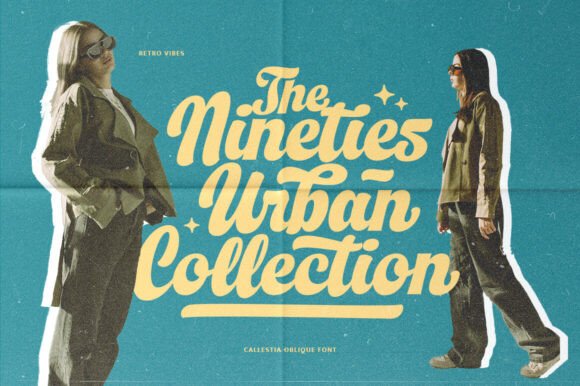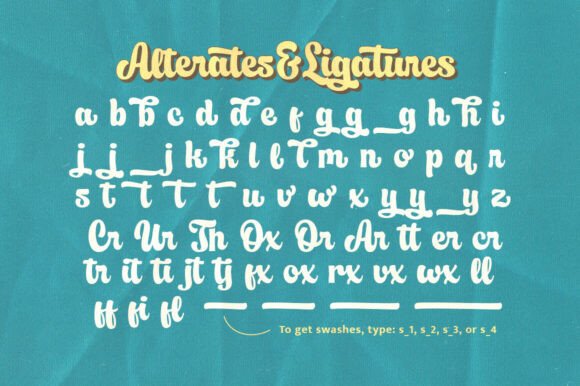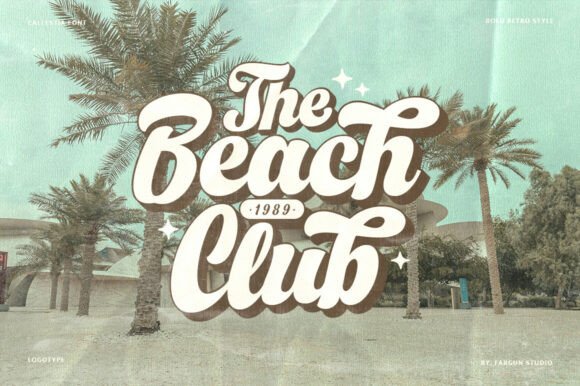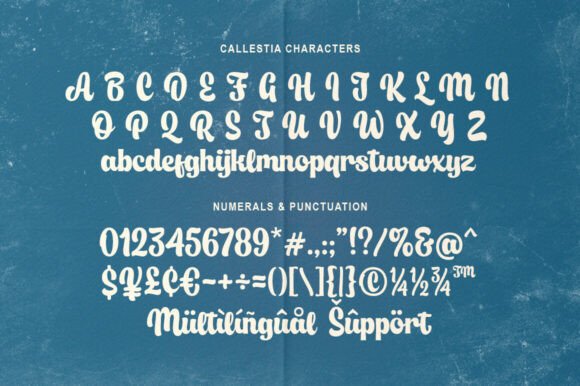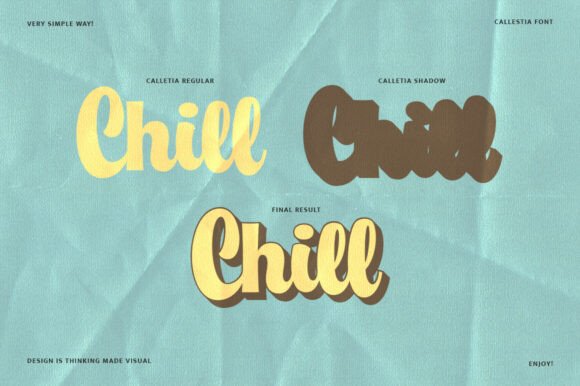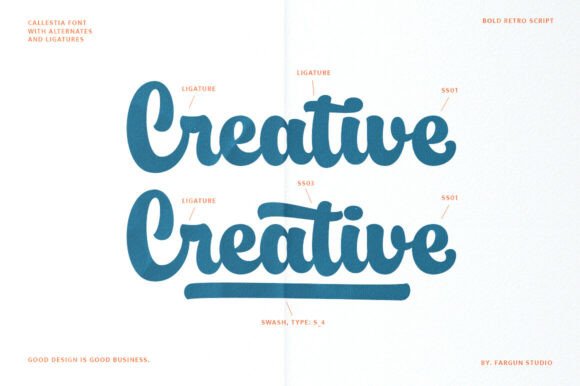
The Retro Revival: Unlocking the Power of the Callestia Font
Who hasn’t spent hours pouring over old cassette tapes, VHS recordings, and vinyl records, reminiscing about the carefree days of the 90s? As a designer, I’ve always been fascinated by the unique aesthetic of that era – the bold typography, the vibrant colors, and the infectious energy. And that’s exactly what the Callestia Font embodies – a bold retro script that instantly transports you back to the vibrant days of yesteryear.
The Callestia Font is more than just a typeface; it’s a statement piece that’s designed to make your projects stand out effortlessly. With its smooth curves, strong personality, and oblique and extrude versions, this font is a treasure trove of creative possibilities. Whether you’re a seasoned designer or just starting out, the Callestia Font is a valuable addition to your toolkit, offering the flexibility to create eye-catching retro effects with ease.
Callestia Font Key Features
- Font Family: Callestra, Callestra Italic, Callestra Bold, Callestra Bold Italic
- Unique Characteristics: Elegant script font with a touch of modernity, suitable for invitations, wedding stationery, and other formal events
Callestia Font Review
When I first laid eyes on the Callestia Font, I was immediately drawn to its elegant and sophisticated aesthetic. ✨ The flowing curves and subtle flourishes evoke a sense of luxury and refinement, making it perfect for high-end branding, fashion, and design projects.
Here are some of the things that work well with Callestia Font:
- ✨ Elegant and sophisticated aesthetic
- ✨ Perfect for high-end branding, fashion, and design projects
- ✨ Beautifully designed for display and text use
- ✨ Supports various languages
However, I did encounter some limitations with the Callestia Font:
- ⚠️ Limited font sizes and weights available
- ⚠️ Not suitable for large blocks of text, as it can be quite busy
- ⚠️ Some users may find it too ornate or over-the-top
Overall, I think Callestia Font is a beautiful and versatile font that can add a touch of sophistication to any design project. While it may have some limitations, it’s definitely worth considering for high-end branding and design projects.
Tips for Getting the Most Out of Callestia
Here are some tips for getting the most out of the Callestia font:
- Use Callestia for headings and titles to add a touch of elegance to your designs.
- Combine Callestia with other fonts to create a unique and visually appealing typography.
The Callestia font is perfect for:
- Business cards and resumes.
- Marketing materials and brochures.
- Website headers and footers.
- Choose a bold and colorful background to contrast with the elegant Callestia Font.
- Use the font for the book title, author’s name, and any quotes or lyrics that add to the story’s atmosphere.
- Combine with illustrations or watercolor elements to create a whimsical feel.
- Use Callestia Font for the wedding details, such as the date, time, and location.
- Pair with a simple, elegant background to let the font take center stage.
- Combine with subtle textures or patterns to add depth and interest.
- Use Callestia Font for the destination name and any key details, such as the travel dates and prices.
What is Callestra Font and what makes it unique?
Callestia Font is a sans-serif typeface designed for digital use. It is unique in its clean and modern design, making it ideal for a wide range of applications, including digital products, branding, and advertising. Callestra Font features a high x-height, making it highly legible even at small font sizes.
Project 2: Modern Wedding Invitation
Design a sophisticated wedding invitation featuring Callestia Font in a clean and modern aesthetic.
Tip: Use a clear and easy-to-read font, such as Callestia, for the important details, and a more decorative font for the overall design.
Project 3: Vintage Travel Poster
Create a nostalgic travel poster featuring Callestia Font in a distressed and vintage-inspired design.